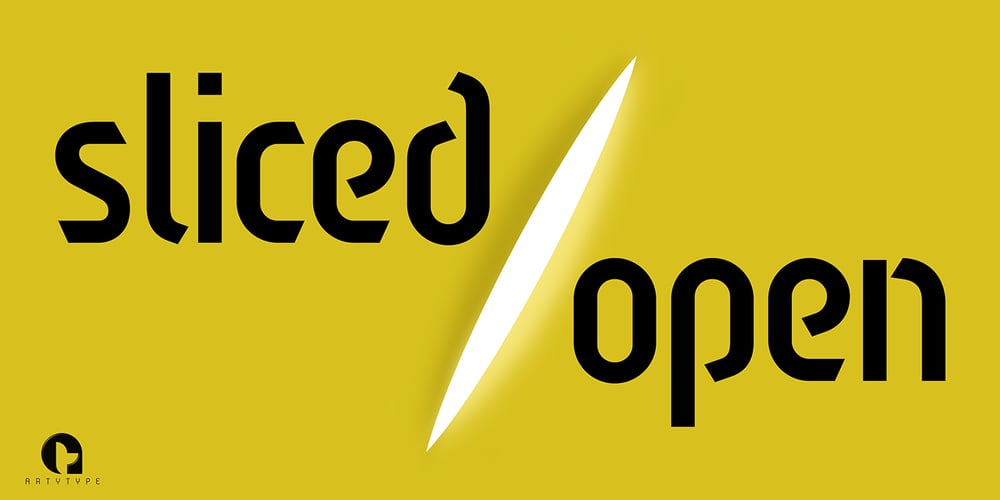
Sliced Open
Sliced Open font
Sliced Open Font Family was designed by James Marsh and published by ArtyType. Sliced Open contains 6 styles and family package options. This type family is the lighter, more open companion to the eye-catching Sliced volume, a masculine display face with boldly sliced terminals and angles, available in 3 widths. The complete Sliced volume numbers 14 styles, a versatile modern suite of fonts with extended European language coverage, available in OpenType, TrueType & web formats.